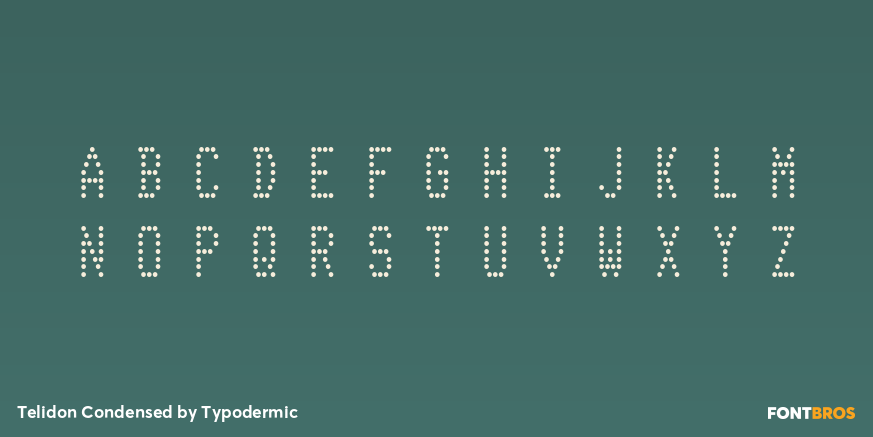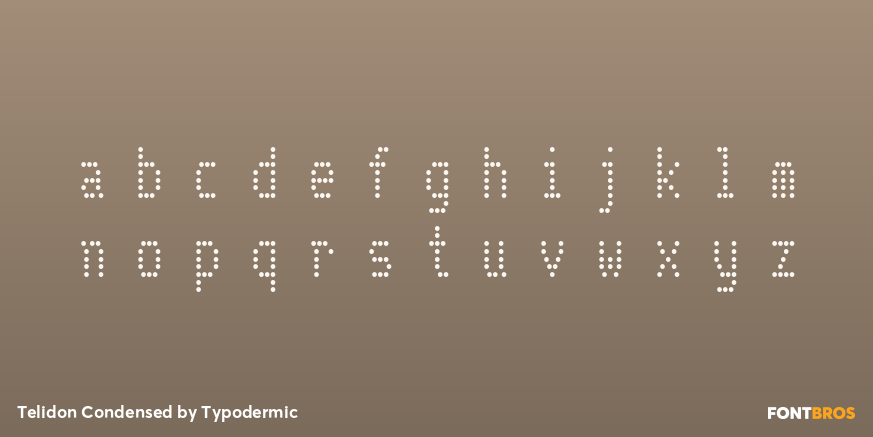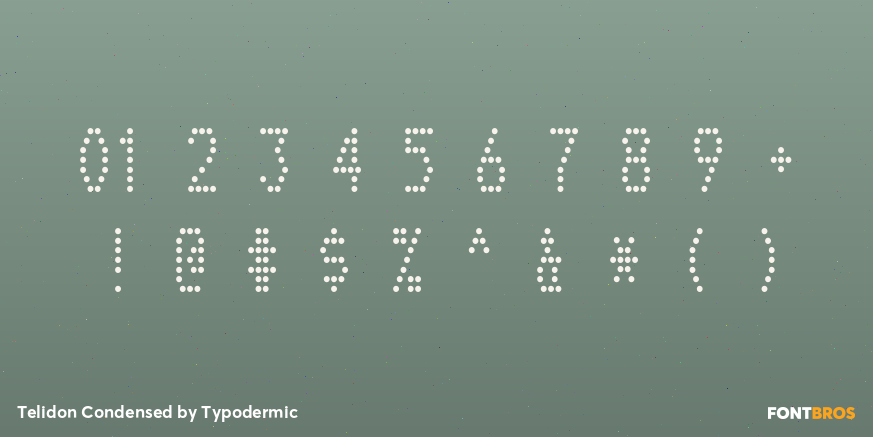
Telidon Condensed
Buy NowTelidon reconstructs the logic of dot-matrix impact printing rather than using dots as a decorative texture. Its monospaced characters recall the reports, inventories, laboratory results, and continuous-form documents produced by late-20th-century printers. The distinction lies in how the alphabet changes mode.
Expanded characters repeat horizontal impressions instead of stretching a smooth outline. Bold and Heavy styles build density by adding dots, while the italics shift pin positions in half-unit steps. These mechanical changes distinguish Telidon from dot-matrix lettering that simply stretches or slants a single bitmap alphabet.
Telidon is particularly effective when typography needs to appear issued by a machine. Film and television production designers can use it for computer printouts, financial records, laboratory reports, inventory sheets, and dispatch notices generated by period or fictional equipment. Computing and office-technology exhibitions can apply the same printer logic to reconstructed documents, diagrams, captions, and wall graphics.
The association also suits contemporary transportation, logistics, and technical-product design. Railway tickets, flight records, cargo manifests, tracking labels, model numbers, and equipment specifications all benefit from Telidon’s procedural, machine-readable character. At large sizes, its clean circular dots can also suggest LED arrays, flip-dot destination boards, and scoreboard displays without obscuring their impact-printer origin.
Telidon presents the printhead’s instructions with every dot in place. Its companion Telidon Ink records what happens when those instructions encounter a worn ribbon, imperfect paper feed, and repeated handling.